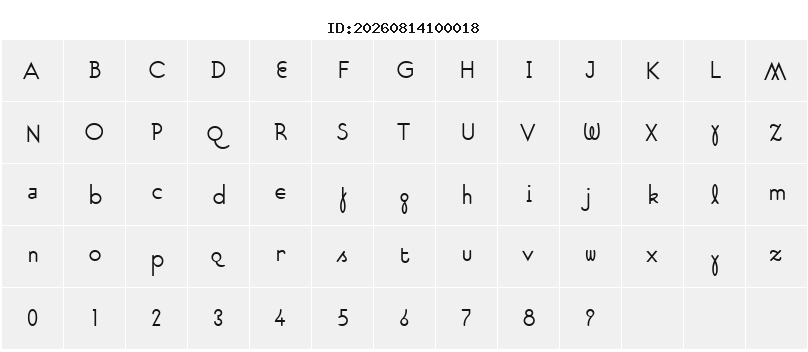
• Font Name: SuburbanLight
• Full Font Name: SuburbanLight Regular
• Copyright: Copyright (C) 1994, Emigre Graphics, Designed by Rudy VanderLans
About SuburbanLight.ttf
SuburbanLight.ttf is a modern, elegant sans-serif font designed for ultimate readability and visual harmony. Perfect for branding, headlines, web design, and print materials.